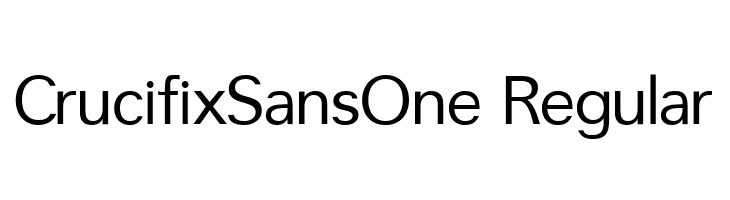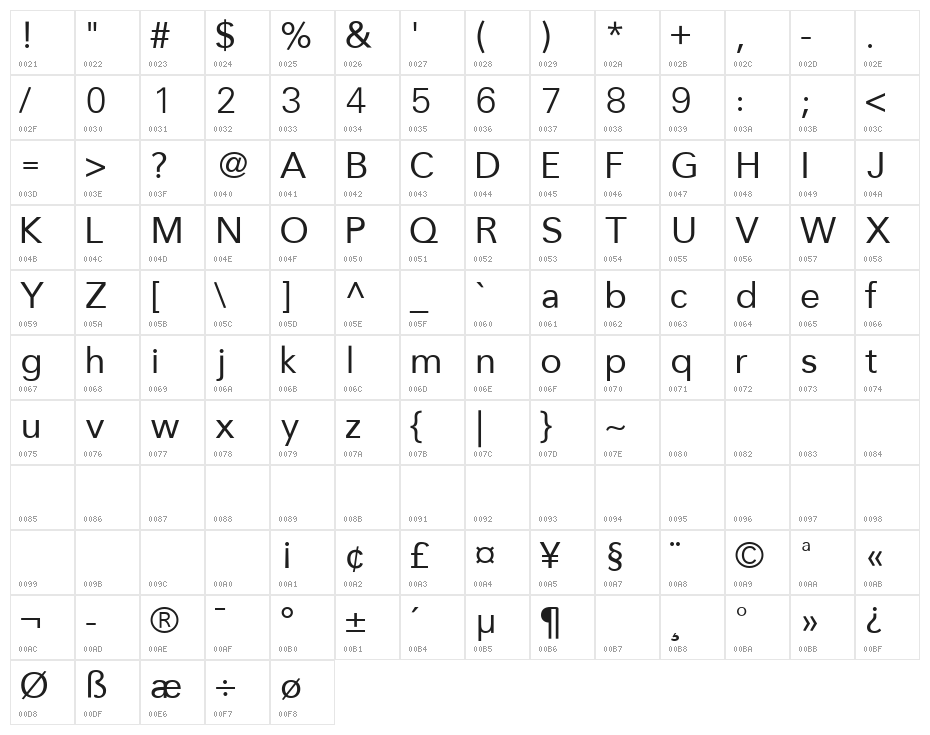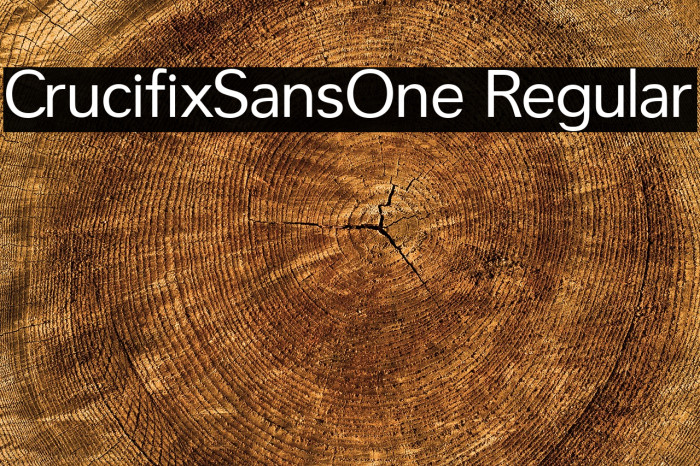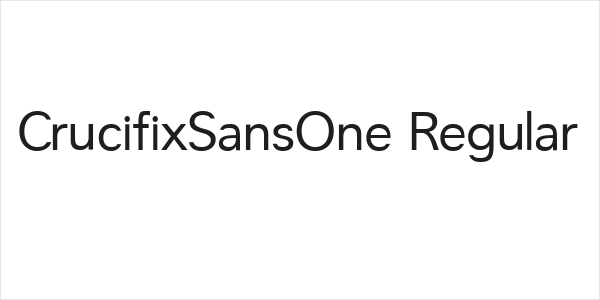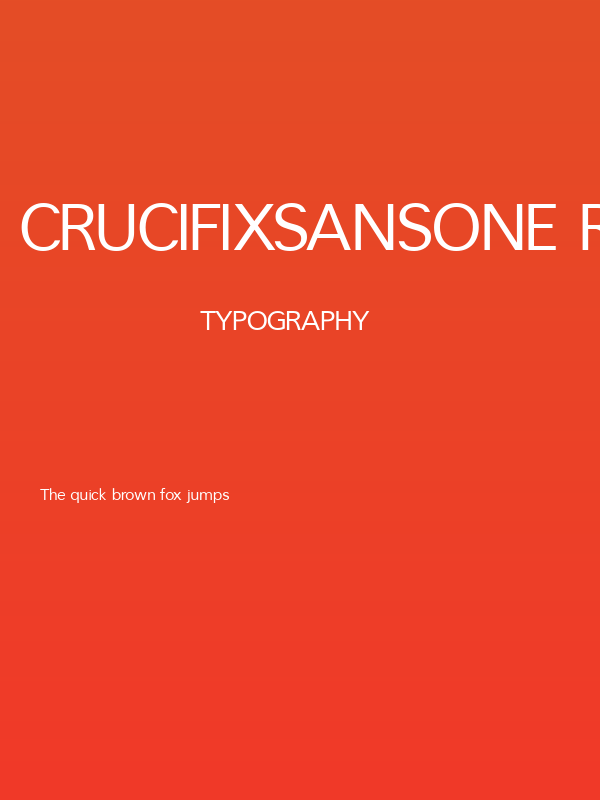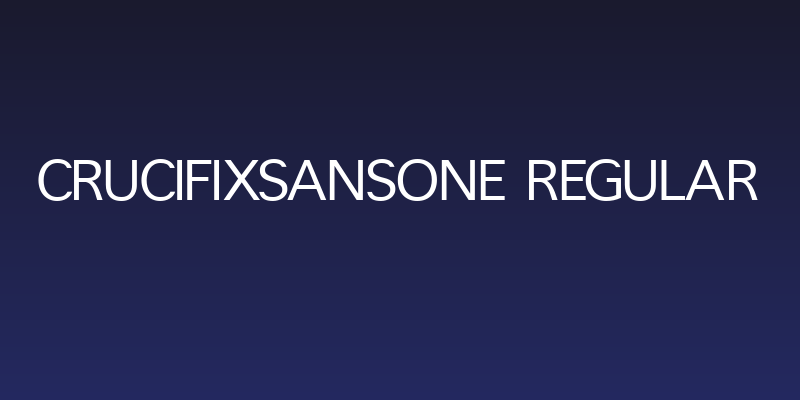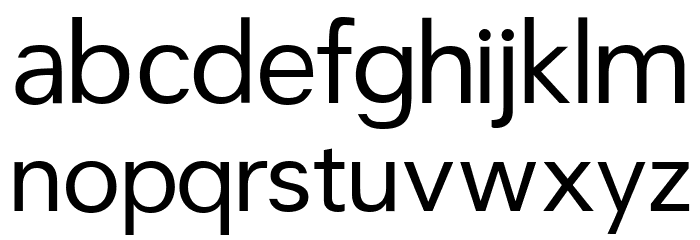
CrucifixSansOne Regular Font
CrucifixSansOne Regular Description
This typeface exhibits a clean and modern sans-serif style, characterized by its geometric shapes and uniform stroke widths. The uppercase and lowercase letters maintain a consistent height and width, providing a balanced and harmonious appearance. The numerals are clear and legible, making them suitable for both digital and print media. Special characters are designed with simplicity, ensuring they complement the overall aesthetic. The font's straightforward design makes it versatile for various applications, from branding to web design.
| Proposed Projects | Ideal for branding, web design, digital interfaces, and print media where clarity and modernity are essential. |